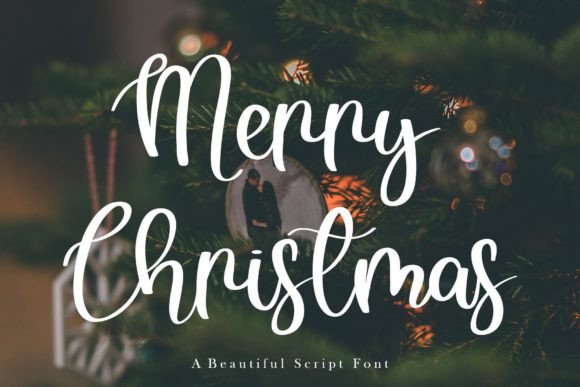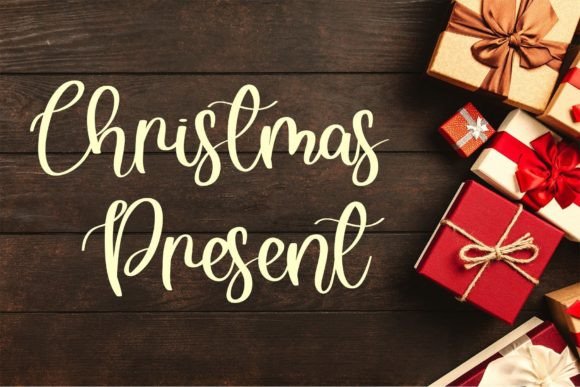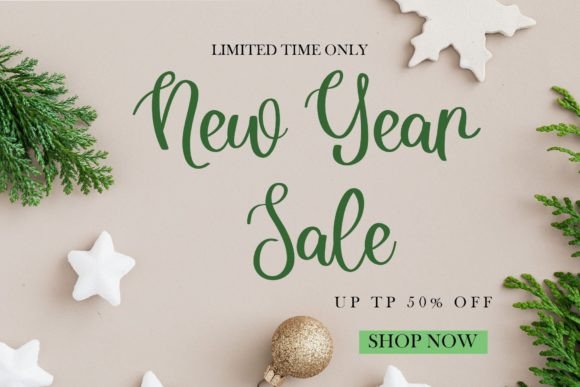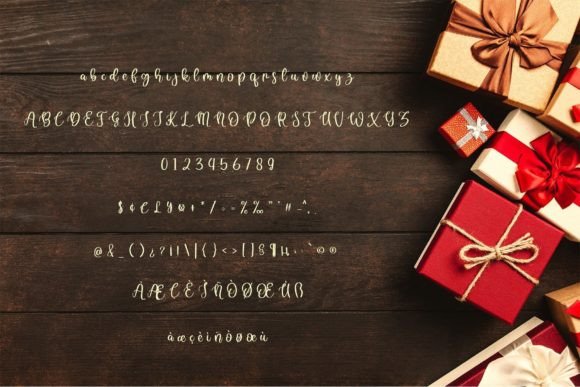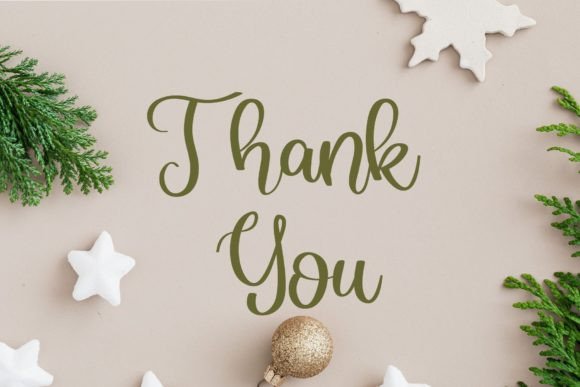
Merry Christmas Font
Merry Christmas exudes an endearing and joyful handwritten charm, making it the perfect font to infuse your design ideas with warmth and delight. Whether you’re working on festive projects, holiday greetings, or any creative endeavor, this font serves as a magical tool to turn your designs into true standouts.
The adorability of Merry Christmas adds a special touch to your creations, making them instantly captivating and heartwarming. The handwritten style of the font carries a unique charm that evokes the spirit of the holiday season, making it an ideal choice for Christmas-themed designs.
Utilizing Merry Christmas allows you to tap into the joyous and festive atmosphere associated with the holiday season. Its playful strokes and whimsical details inspire creativity, encouraging you to craft designs that spread cheer and convey the magic of Christmas.
The font’s ability to stand out is a testament to its uniqueness. Merry Christmas transforms ordinary design ideas into visually appealing and memorable creations. Whether you’re designing holiday cards, banners, or social media posts, this font ensures that your work radiates a merry and uplifting vibe.
Merry Christmas is not just a font; it’s a source of inspiration that sparks creativity and encourages you to explore the full potential of your designs. Its adorable and joyful character sets the stage for creating lovely designs that resonate with the festive spirit.
In conclusion, let Merry Christmas be the magical touch that elevates your design ideas during the holiday season. Embrace its adorable and joyful essence, and watch as your designs come to life with a unique charm that spreads warmth and happiness. Get inspired, get creative, and let Merry Christmas be the heartwarming companion on your festive design journey.